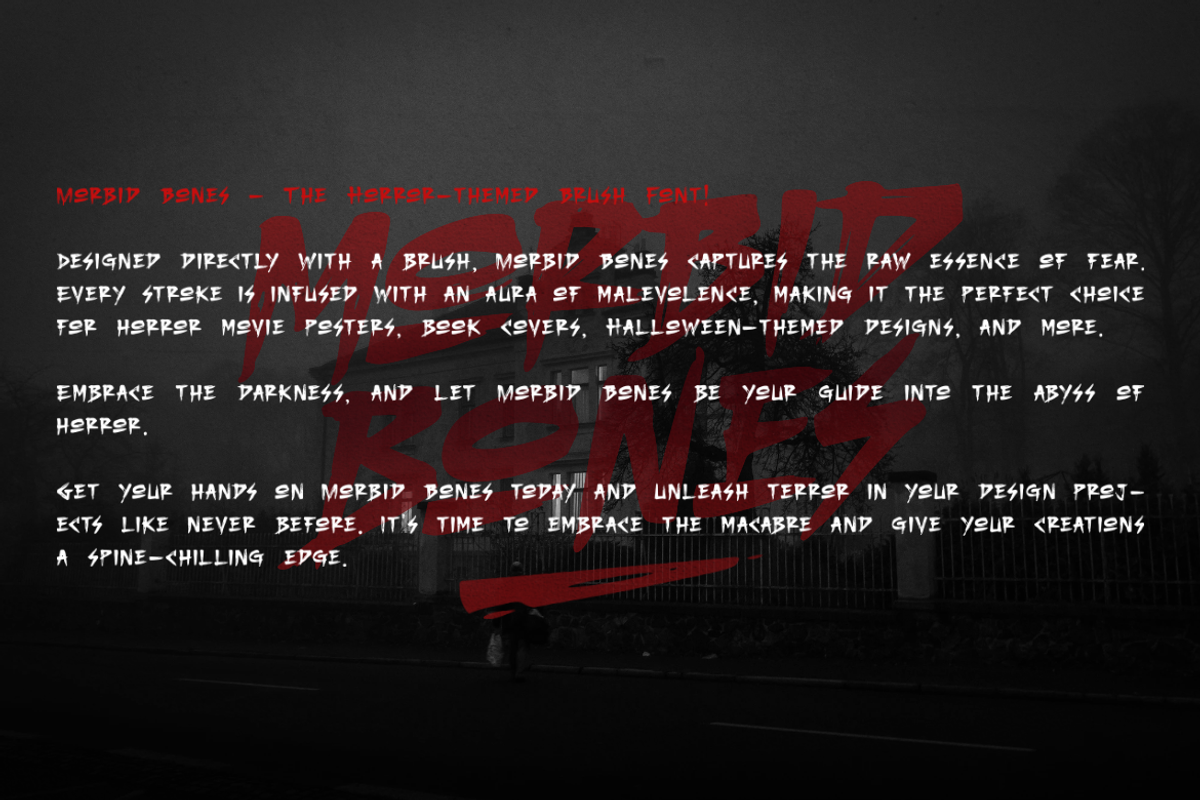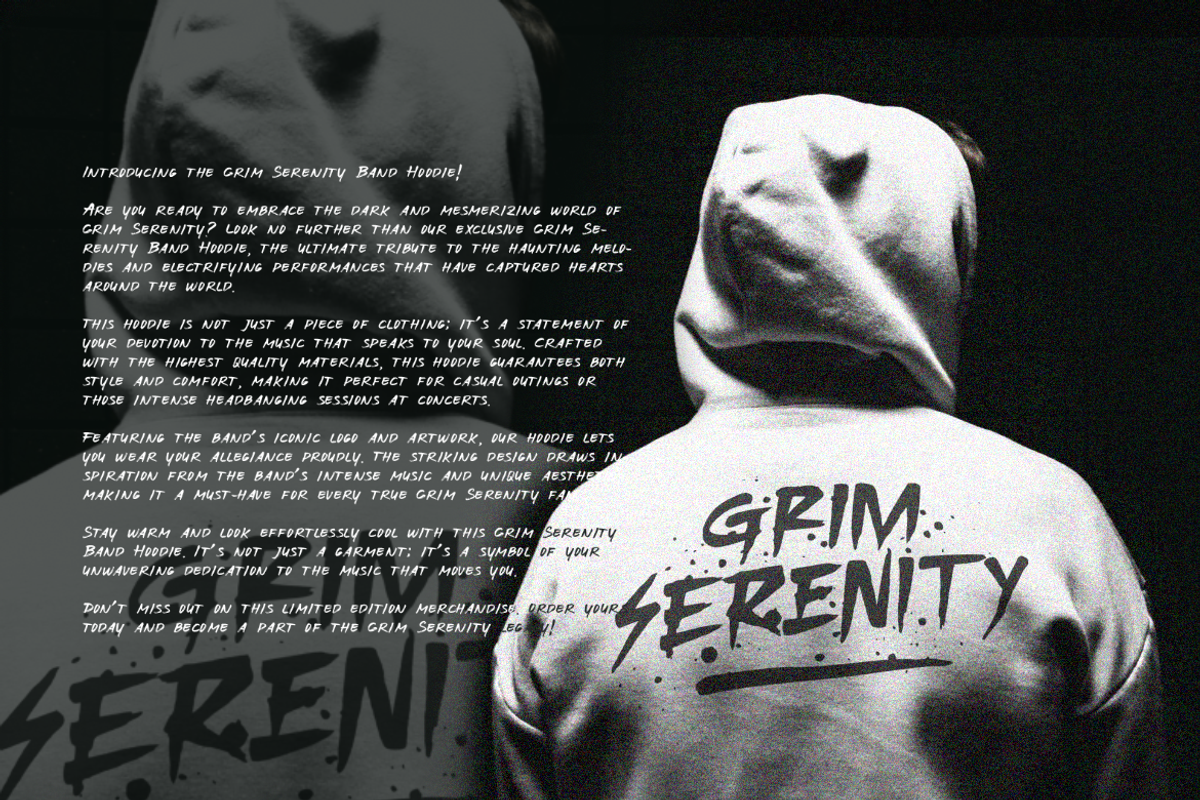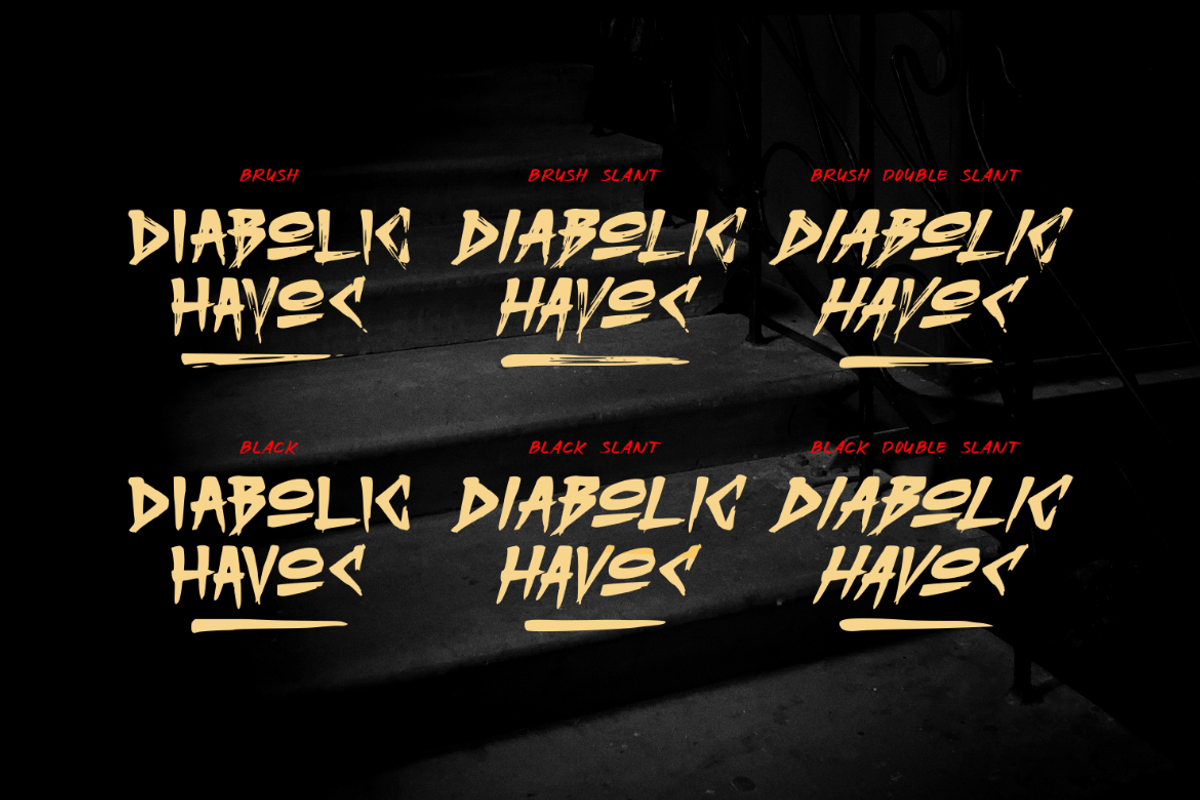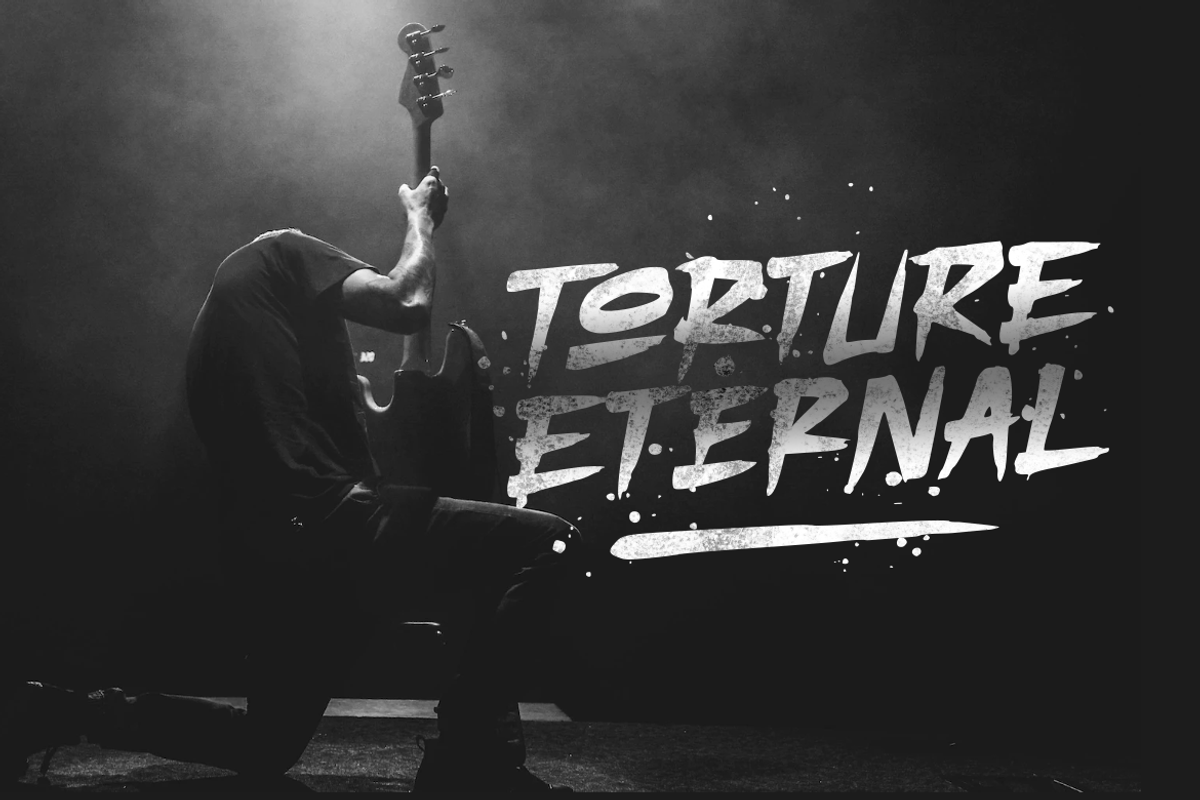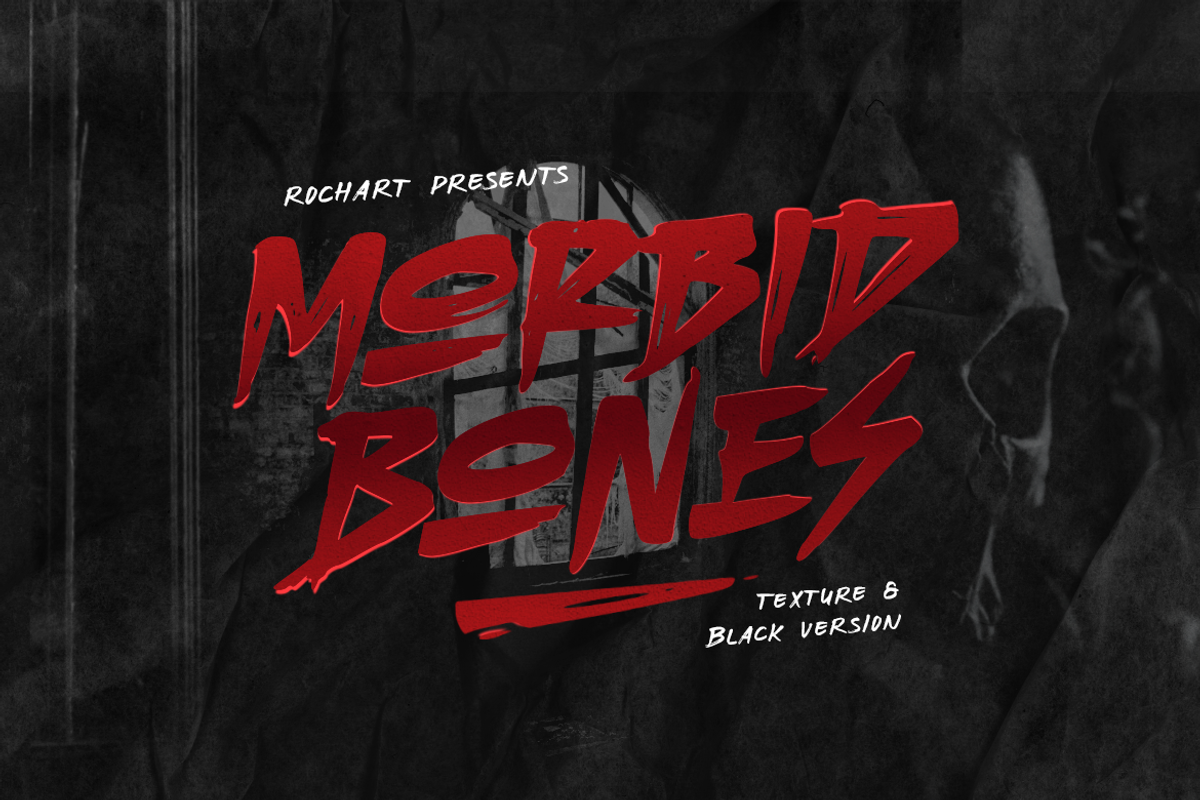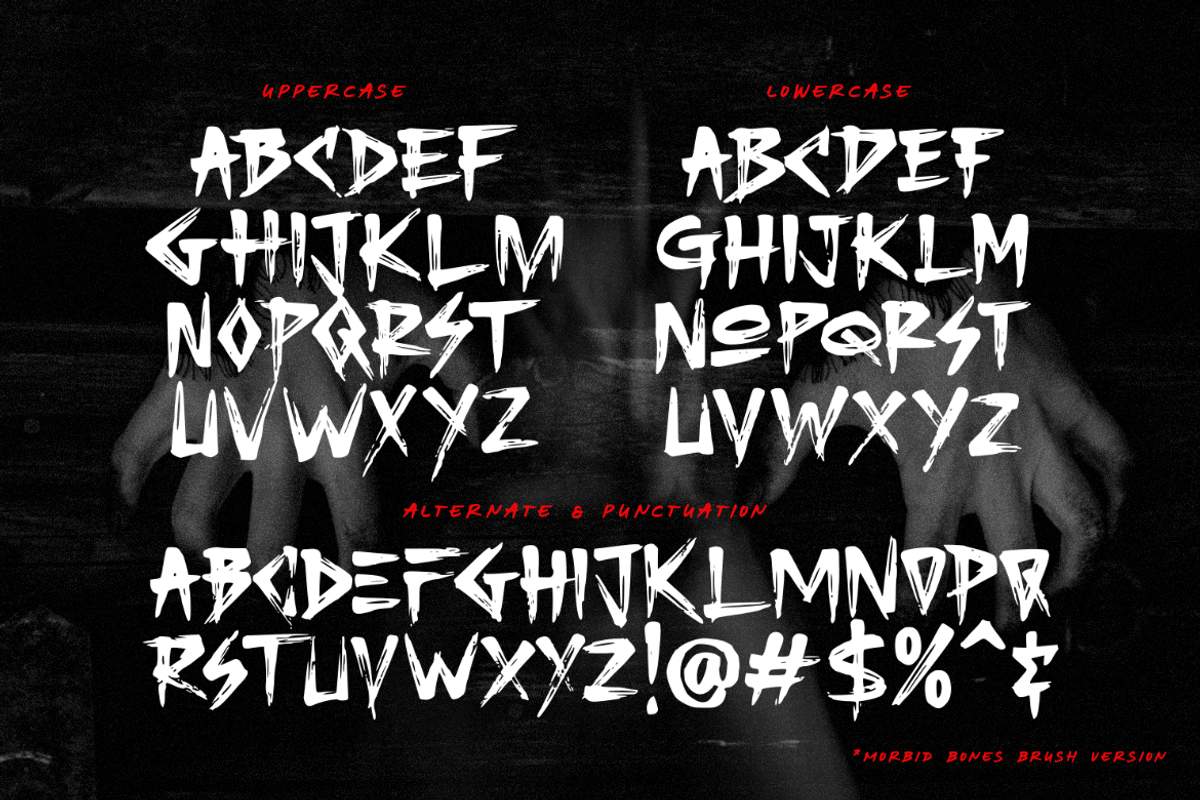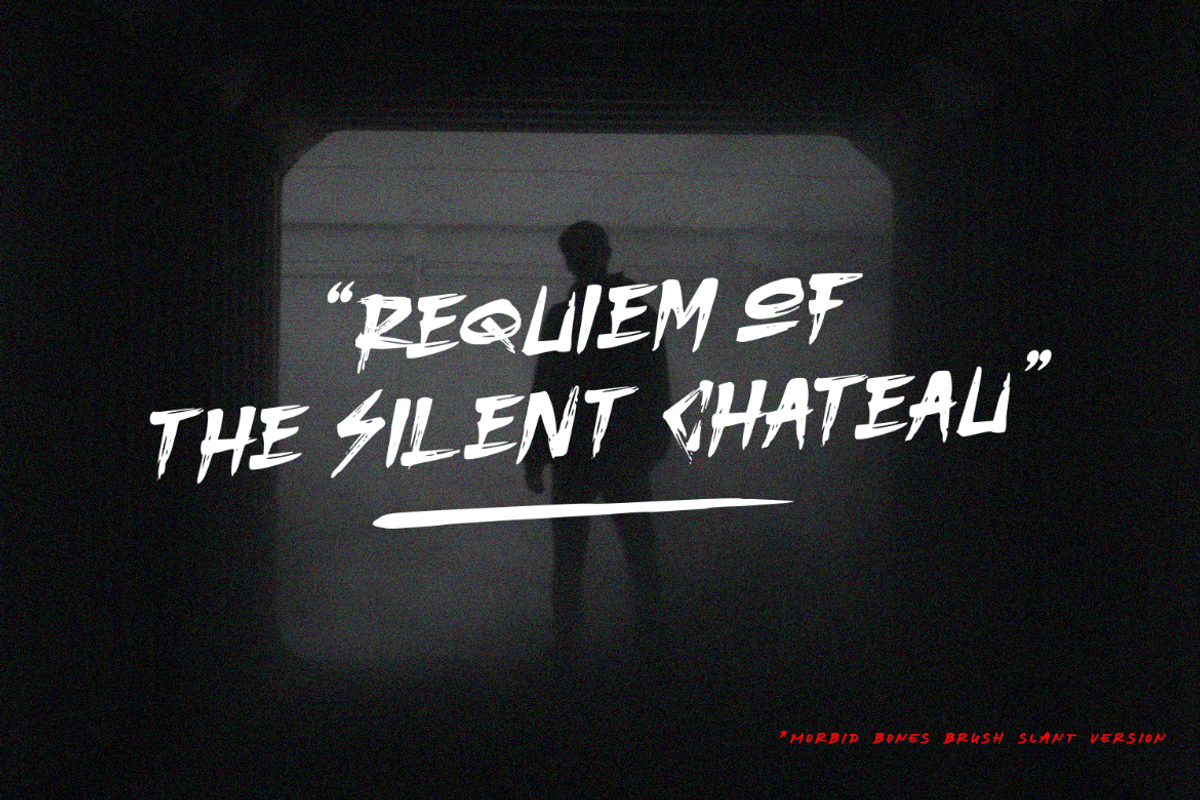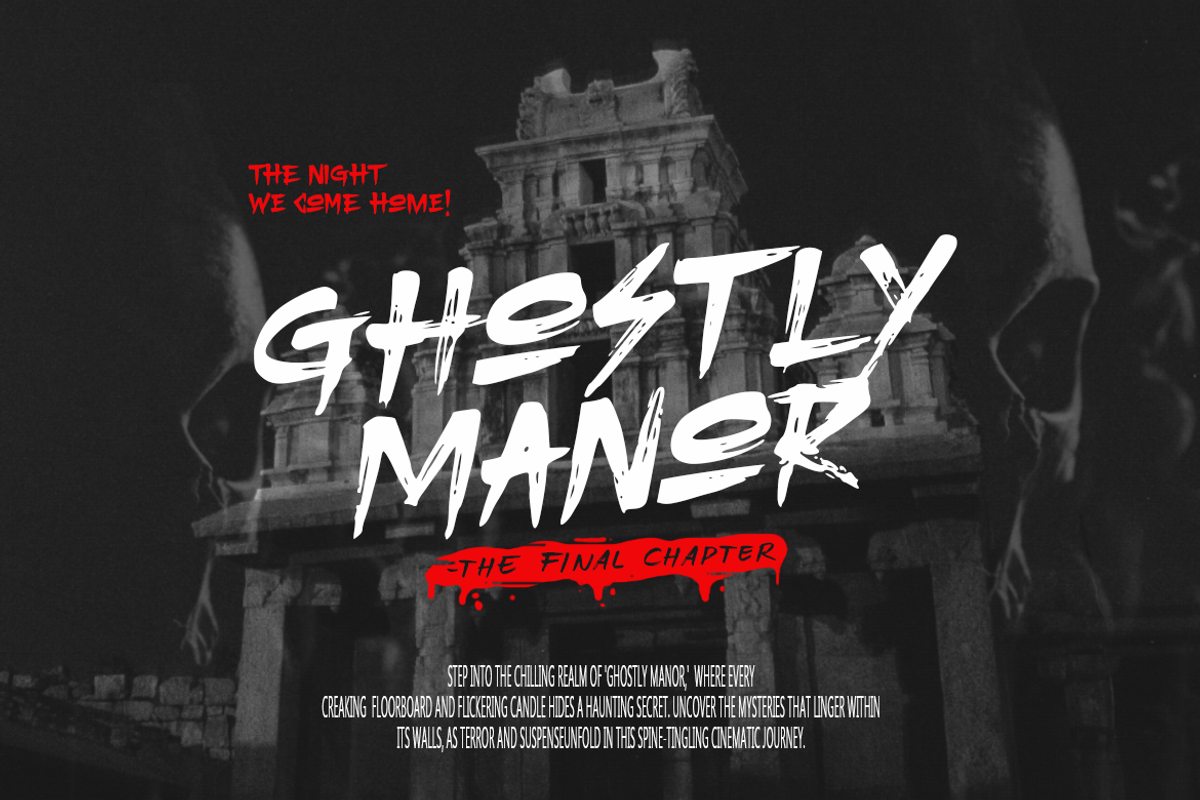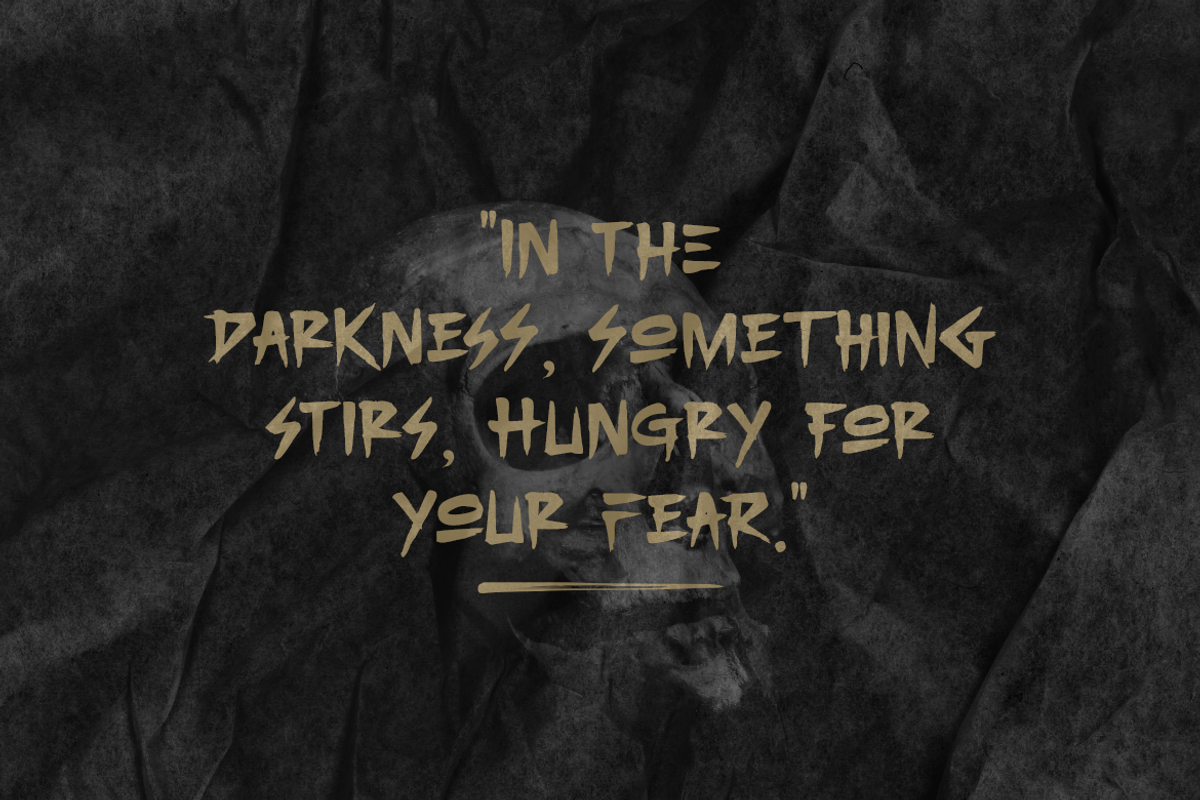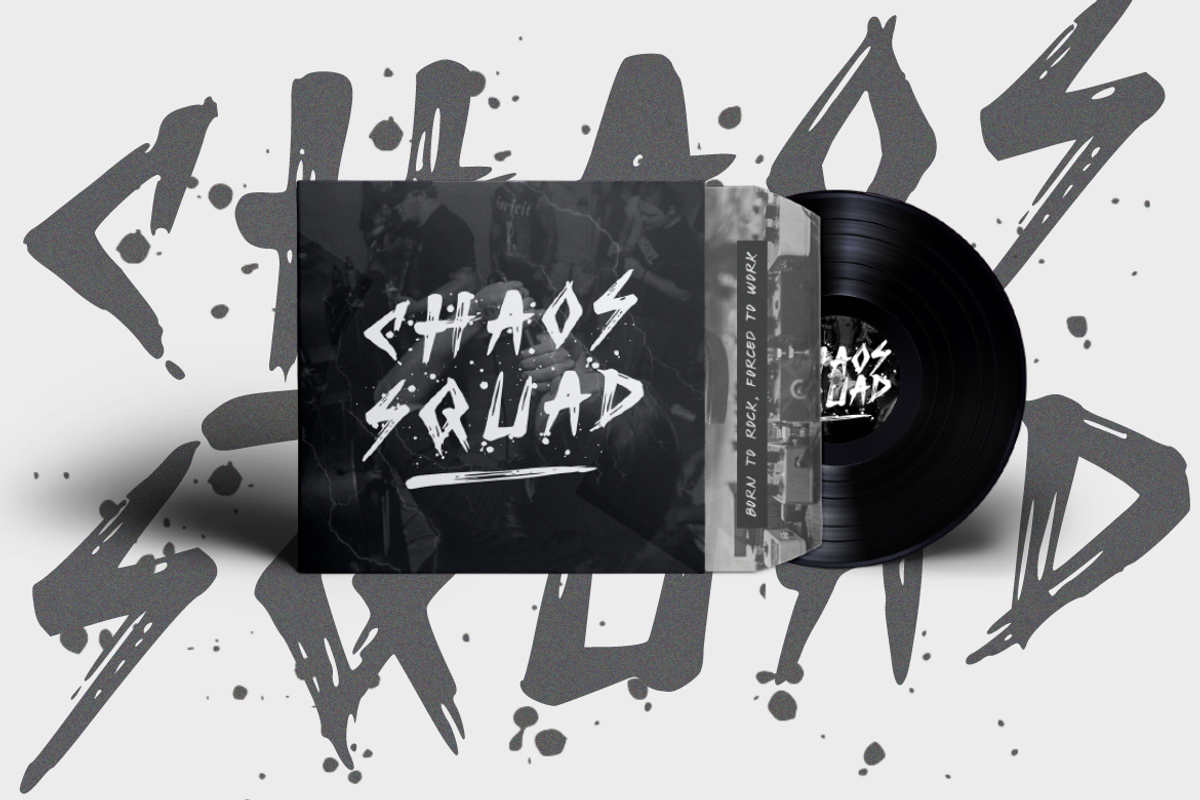
Horror brush font - Morbid Bones
Dive into the depths of terror with Morbid Bones, a spine-chilling font family that redefines horror-themed typography. Created using authentic brush strokes, Morbid Bones embodies the macabre, making it the perfect choice for all your sinister design needs.
Morbid Bones is more than just a font; it's an invitation to explore the darkest corners of your imagination. Whether you're a graphic designer, a filmmaker, or a Halloween enthusiast, Morbid Bones Font Family will be your trusted companion in bringing nightmares to life.
Welcome to the world of horror typography, where Morbid Bones reigns supreme.